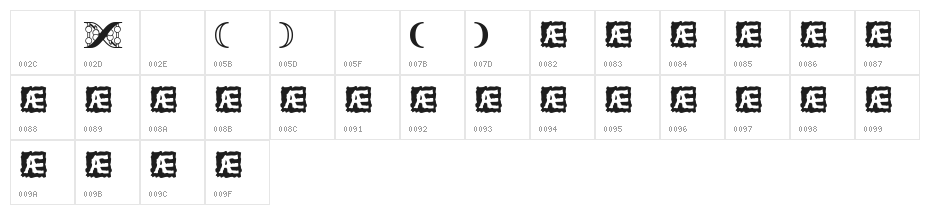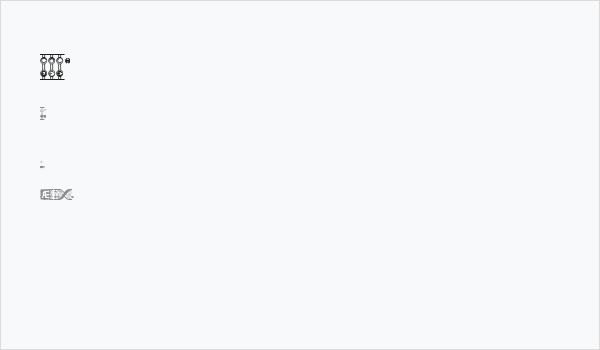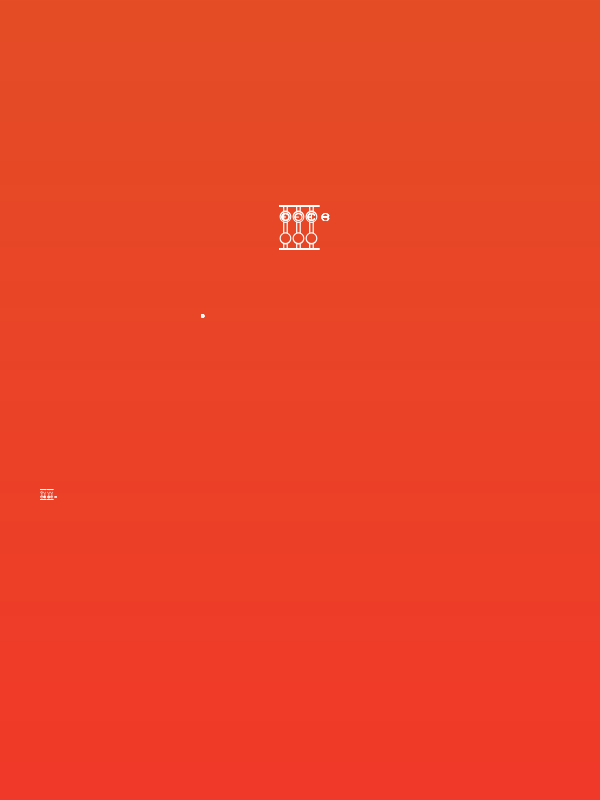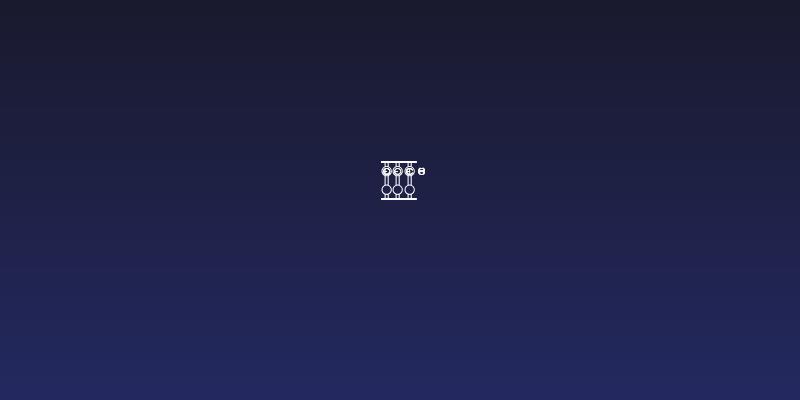
Code Of Life BRK Font
Code Of Life BRK Description
This font features a highly decorative and unique style, reminiscent of biological or molecular structures. Each character is intricately designed with elements that resemble DNA strands and molecular bonds, giving it a scientific and futuristic appearance. The letters are bold and have a strong presence, making them suitable for attention-grabbing designs. The overall look is complex and detailed, with a high level of artistry involved in the creation of each character. This font is not suitable for body text due to its intricate design but can be effectively used in thematic projects that require a scientific or technological aesthetic.
| Overall Style | Futuristic, Scientific |
| Use Case | Logos, Headlines |
| Proposed Projects | Ideal for science fiction book covers, educational posters, and technology-themed branding. |